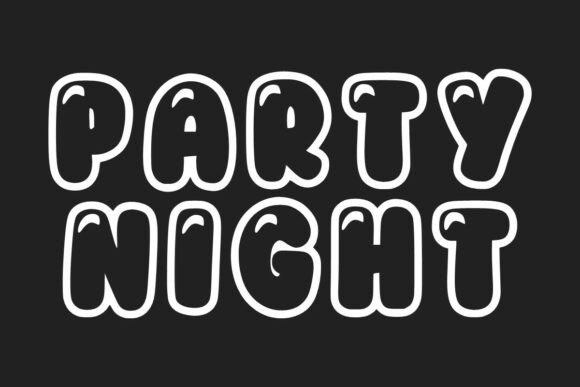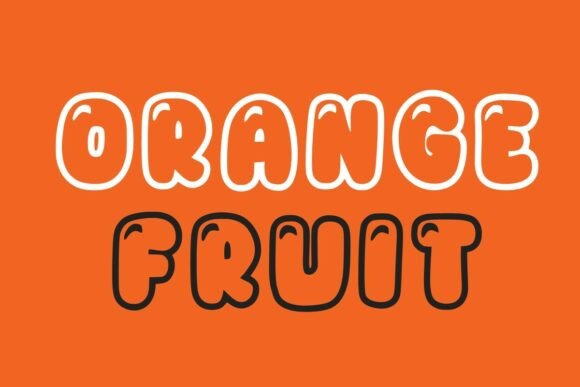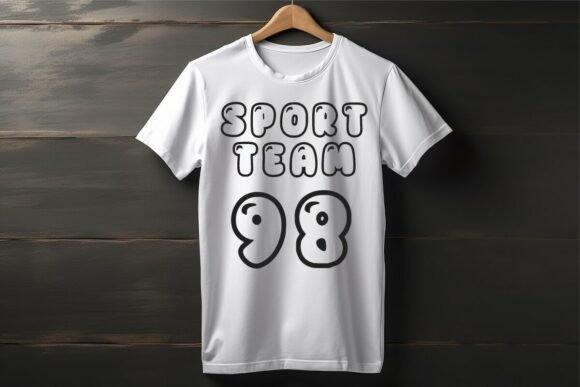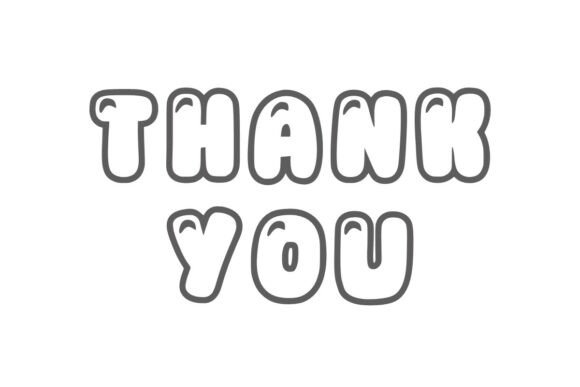
Unleash Your Creativity with Comic Retro: The Ultimate Outline Bubble Font
Welcome to the playful world of typography, where nostalgia meets modern design! If you’re a designer, crafter, or simply a creative enthusiast, you’re in for a treat. Introducing Comic Retro, a definitive outline bubble font that’s about to become your new favorite companion. With its unique blend of retro charm and modern twist, this font is perfect for adding a touch of whimsy to your digital designs, presentations, greeting cards, and more.
The Charm of Retro Styling
Retro styling has made a significant comeback in recent years, and for good reason. It’s a design aesthetic that evokes feelings of nostalgia, playfulness, and creativity. Comic Retro is a font that perfectly captures the essence of retro styling, with its bold lines, outlined letters, and bubble-like font structure. The result is a visually appealing and highly readable font that’s sure to grab attention.
Approachability and Readability
One of the standout features of Comic Retro is its unfailing approachability and readability. The font’s clean lines, simple shapes, and generous letter spacing make it easy to read, even at smaller font sizes. This makes it an excellent choice for digital designs, presentations, and other applications where legibility is crucial. Whether you’re designing for a client or creating a personal project, Comic Retro ensures that your message is conveyed clearly and effectively.
A Modern Twist on Classic Design
While Comic Retro is undoubtedly a retro-inspired font, it also boasts a modern twist that sets it apart from more traditional designs. The font’s outline structure and bold lines give it a fresh and contemporary feel, making it perfect for designers who want to add a touch of nostalgia to their work without sacrificing modern style. Whether you’re creating a logo, brochure, or social media graphic, Comic Retro is a versatile font that adapts seamlessly to any design context.
So, what can you create with Comic Retro? The possibilities are endless! Here are just a few ideas to get you started:
- Digital designs: Add a playful touch to your website, social media graphics, or email newsletters with Comic Retro.
- Presentations: Make your presentations more engaging and fun with this eye-catching font.
- Greeting cards: Create personalized greeting cards that are sure to delight friends and family.
- Crafts: Use Comic Retro to add a touch of personality to your handmade crafts, such as scrapbook pages, DIY jewelry, or customized home decor.
Why Choose Comic Retro?
With so many fonts available, why choose Comic Retro? Here are just a few reasons why this font stands out:
- Unique design: Comic Retro’s outline bubble font structure is unlike any other font on the market.
- Highly readable: The font’s clean lines and generous letter spacing make it easy to read, even at smaller font sizes.
- Versatile: Comic Retro adapts seamlessly to any design context, from digital designs to print materials.
- Nostalgic charm: The font’s retro styling evokes feelings of nostalgia and playfulness, making it perfect for designers who want to add a touch of whimsy to their work.
Get Ready to Express Your Creativity
With Comic Retro, you’re just a few clicks away from unleashing your creativity and adding a touch of nostalgia to your designs. Whether you’re a seasoned designer or a crafty enthusiast, this font is sure to become a cherished cornerstone of your design toolkit. So why wait? Dive into the playful world of typography with Comic Retro and discover a world of creative possibilities!
In conclusion, Comic Retro is a unique and versatile outline bubble font that’s perfect for designers, crafters, and creative enthusiasts. With its retro charm, modern twist, and high readability, this font is sure to add a touch of whimsy to any design project. Whether you’re creating digital designs, presentations, greeting cards, or crafts, Comic Retro is the perfect companion for any creative endeavor. So why not give it a try and see the creative possibilities for yourself?